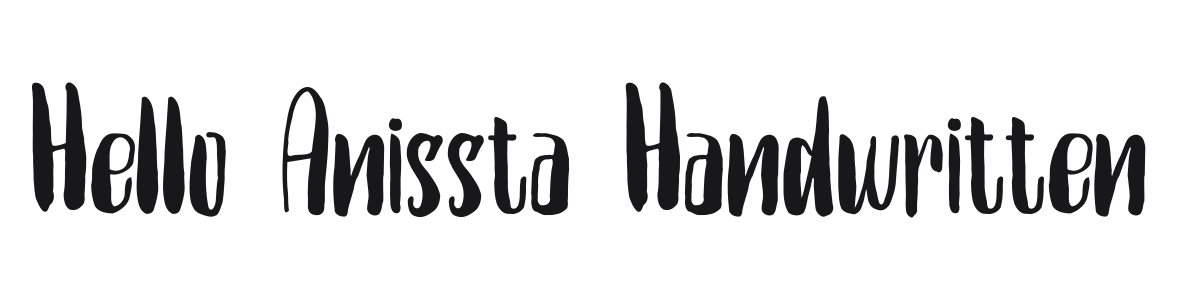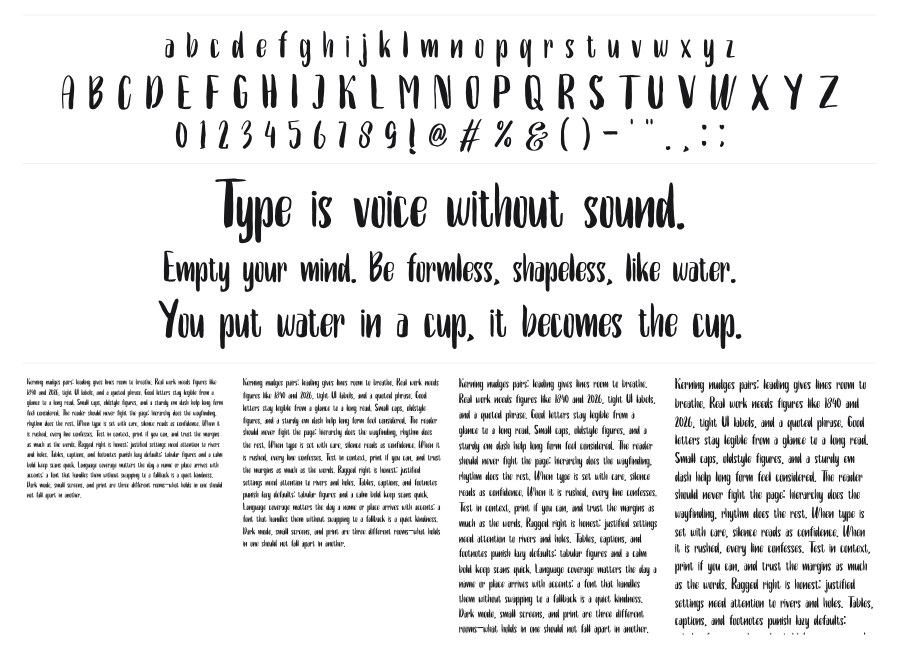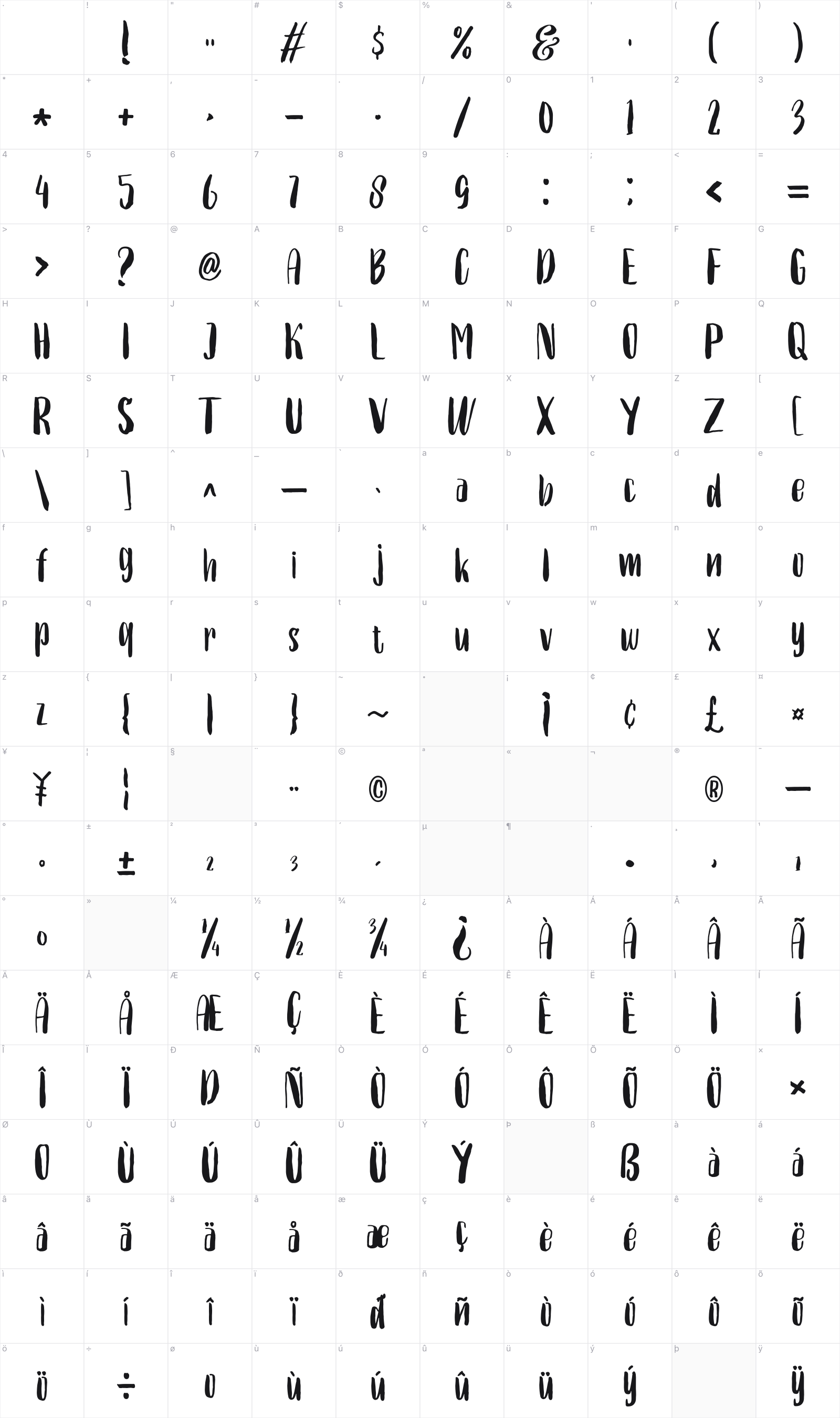
Hello Anissta Handwritten
Hello Anissta Handwritten is a bold, upright casual script that captures the energy of confident hand-lettering. The thick strokes and lively ascenders give it a warm, approachable personality without feeling childish. Strong at large sizes for logos, packaging, and social media graphics.